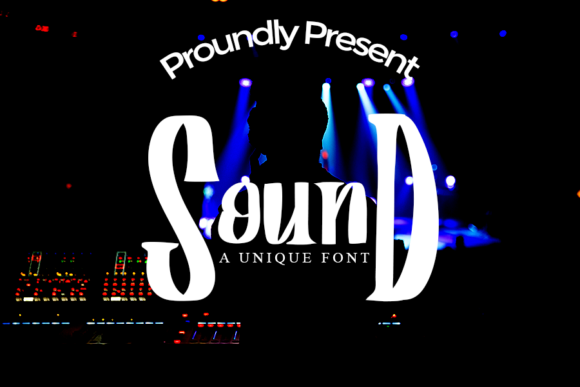
Behold Sound, a font of whimsy and intrigue waiting to set your designs ablaze. With its stylish sharpness, this display font has the power to ignite creativity and breathe life into your projects.
At LetterPack, we believe that fonts are more than just letters; they are the brushstrokes that paint your ideas. Sound is our sheer brilliance, a testament to the transformative power of typography. Its crisp, playful curves and bold, confident strokes will add a touch of playfulness and panache to any design.
With its remarkable versatility, Sound gracefully adapts itself to a myriad of design styles, from quirky and casual to elegant and refined. Whether you're creating logos, posters, social media graphics, or website designs, Sound will effortlessly elevate your creations, leaving an impactful impression on your audience.
Whether you're a seasoned designer or just starting out, the possibilities with Sound are truly endless. Unlock your creative potential and embark on a typographic adventure like never before.